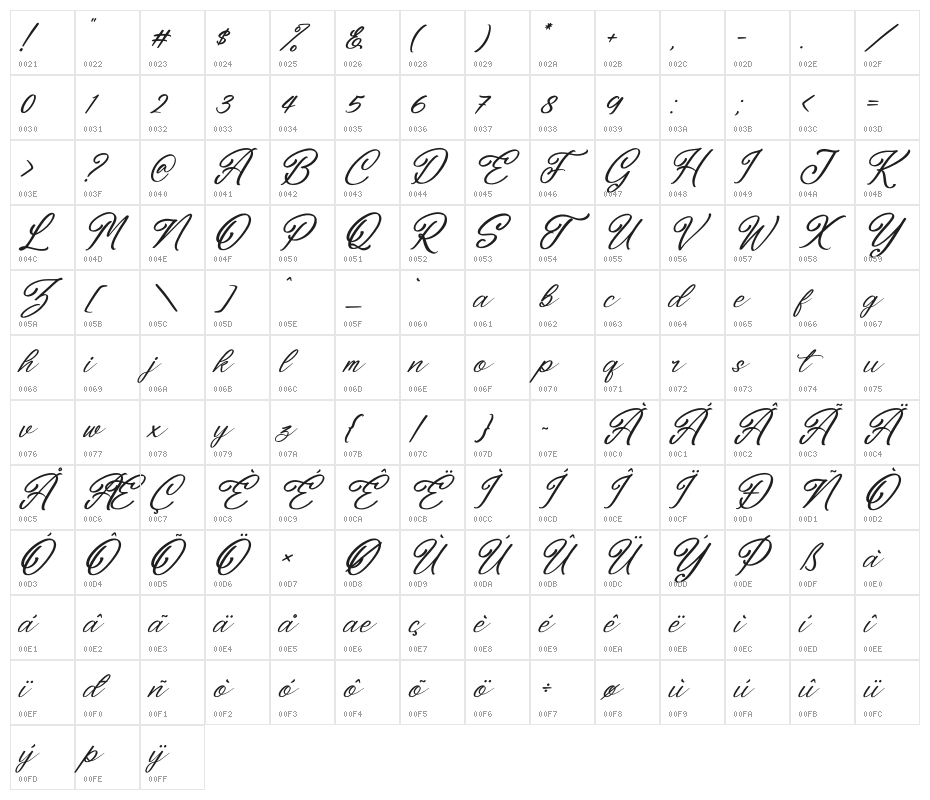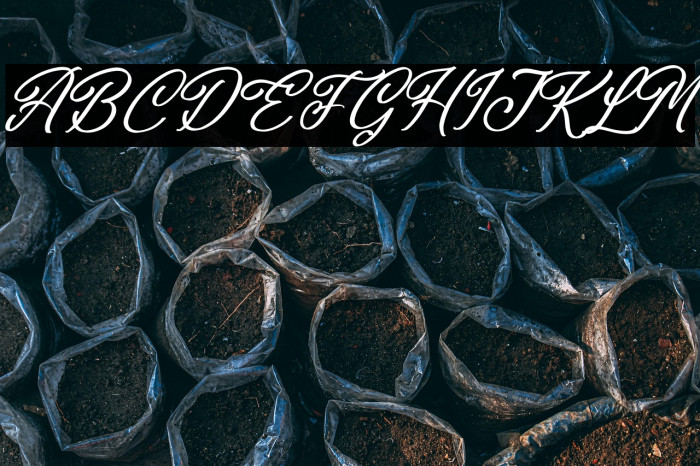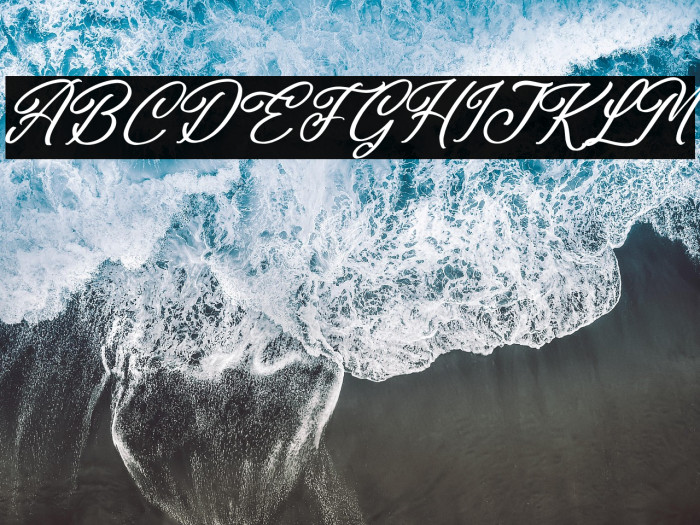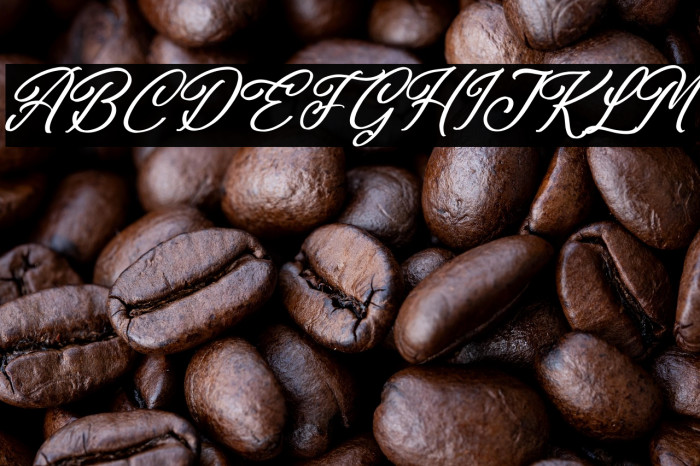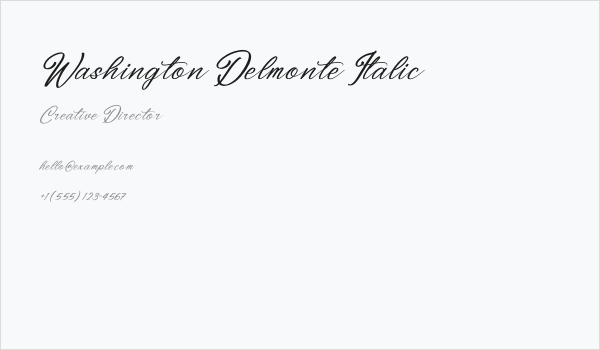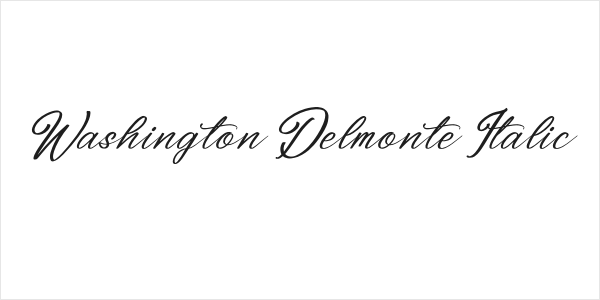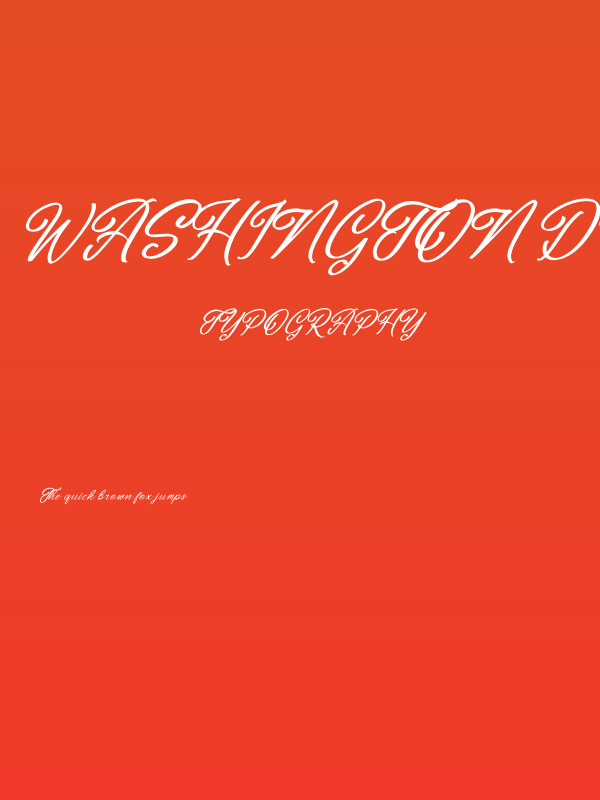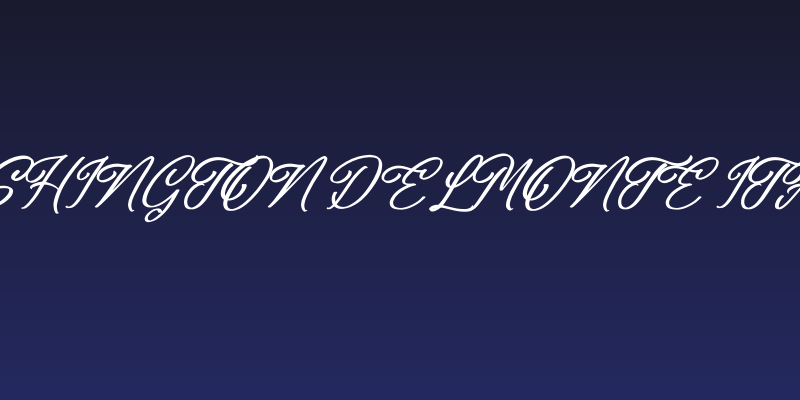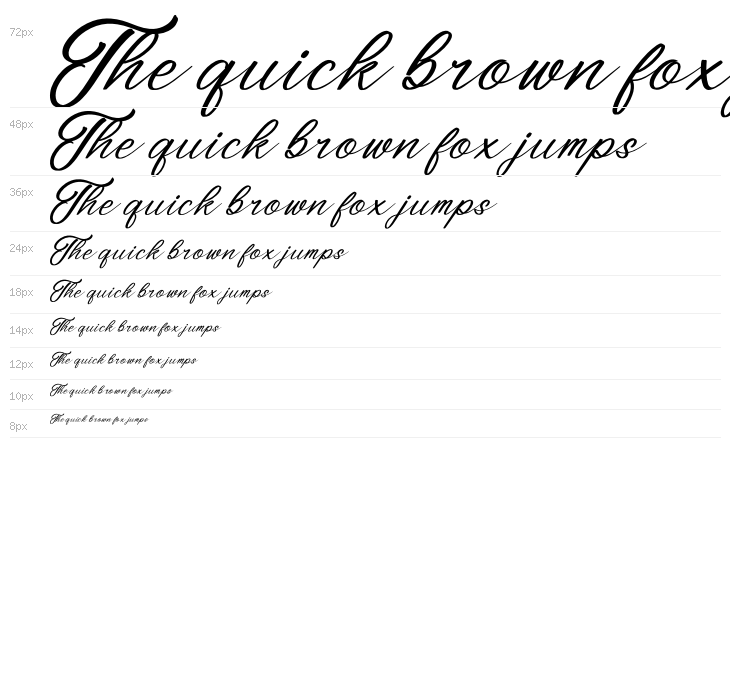
Washington Delmonte Italic Font
Washington Delmonte Italic Description
This elegant script font features a flowing, cursive style with smooth, connected strokes that give it a sophisticated and graceful appearance. The letters are slanted, enhancing the italic nature of the design, and each character is crafted with a consistent stroke width that maintains readability while adding a touch of flair. The uppercase letters are ornate and decorative, while the lowercase letters maintain a more subdued elegance. The numerals and special characters are designed to match the overall aesthetic, making this font suitable for a variety of formal and creative applications.
| Overall Style | Elegant, Decorative |
| Use Case | Invitations, Branding, Greeting cards |
| Proposed Projects | Ideal for wedding invitations, elegant branding, greeting cards, and formal event programs. |